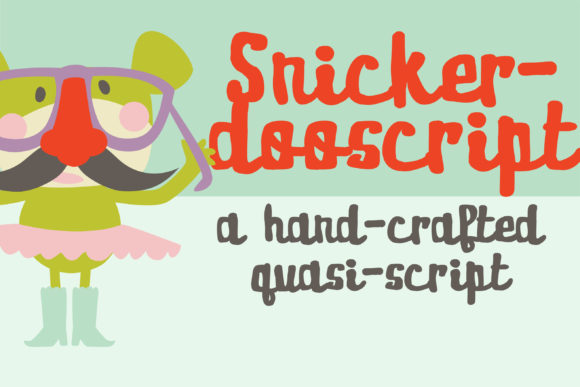
Unleash the Delightfully Elegant Snickerdooscript Font: A Visual Symphony for Your Design Creations
Immerse yourself in the world of typographic wonder with Snickerdooscript, a breathtaking script font family meticulously crafted by Illustration Ink. This casual, hand-crafted quasi-script boasts stiffly upright lettering that dances across your designs with a captivating whimsical charm. Experience the fusion of playful elegance and understated sophistication as you weave your words into enchanting visual tapestries.
With its strong vertical presence and distinct character, Snickerdooscript effortlessly adds a touch of visual intrigue to your projects. Elevate your designs to new heights, whether you're creating captivating logos, stunning posters, eye-catching invitations, or any other project that demands a touch of whimsical flair.
Embark on a Creative Odyssey with Snickerdooscript: Your Key to Design Brilliance
Snickerdooscript is not just a font; it's an artistic playground where creativity roams free. Let your imagination soar as you explore the endless possibilities this font family offers. Capture the essence of handwritten elegance in your wedding invitations, evoke a sense of nostalgia in your vintage-inspired designs, or infuse your branding with a playful touch of uniqueness.
With Snickerdooscript, every letter becomes a stroke of artistry, adding a captivating layer of visual interest to your work. Dive into the world of expressive typography and experience the joy of creating designs that resonate with your audience on a deeper level.
Unleash the Power of Versatility: Snickerdooscript's Limitless Applications
Snickerdooscript is a font that knows no bounds. Its versatility extends across a myriad of design disciplines, making it the perfect choice for designers of all skill levels. Whether you're working on digital or print projects, Snickerdooscript seamlessly adapts to your creative vision, delivering stunning results every time.
Craft captivating headlines that demand attention, weave enchanting stories with your body text, or design logos that leave a lasting impression. Snickerdooscript's inherent charm shines through in every application, adding a touch of magic to your creations.